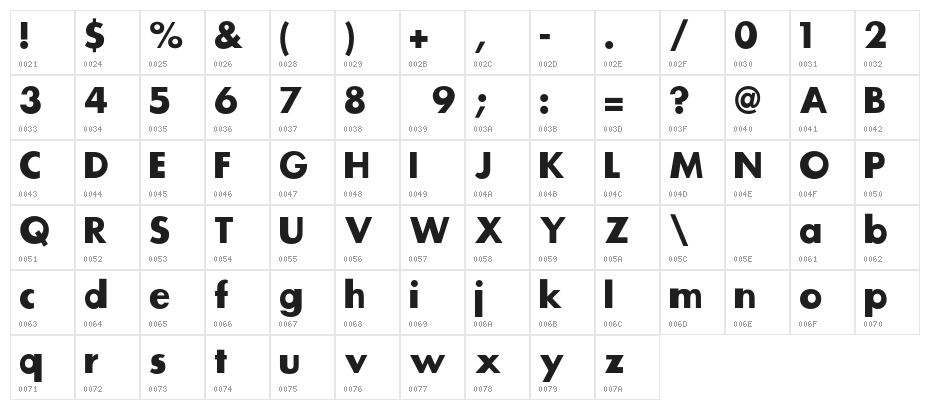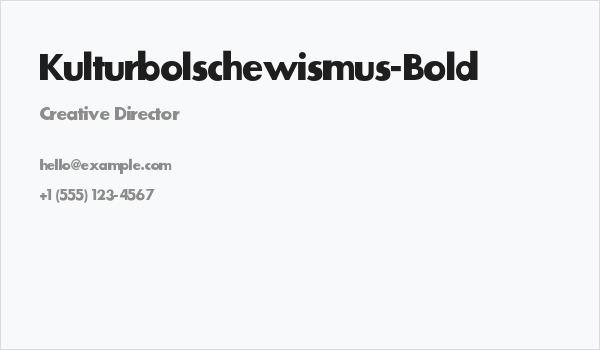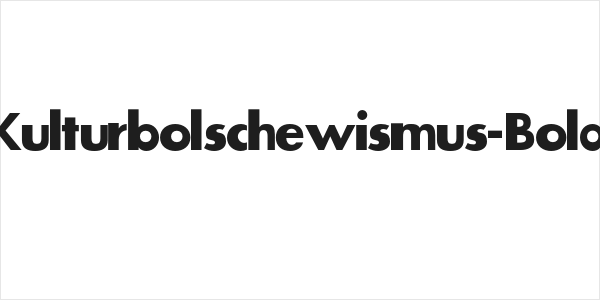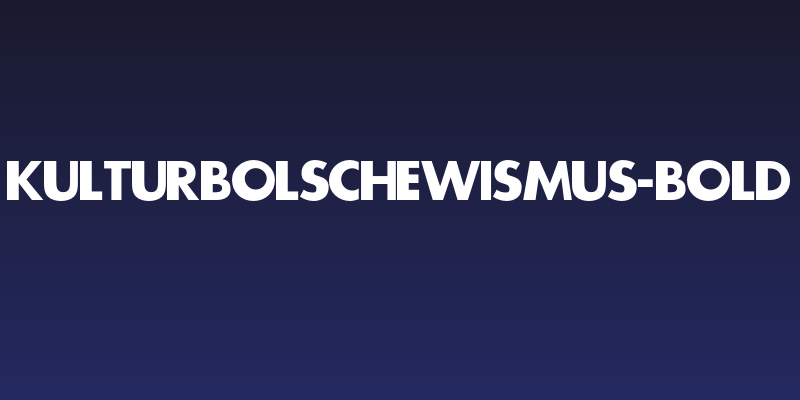
Kulturbolschewismus-Bold Font
Kulturbolschewismus-Bold Description
This bold typeface features a strong geometric design with clean, sharp edges and a modern aesthetic. The uppercase letters are particularly striking, with a uniform height and width that create a sense of stability and strength. The lowercase letters maintain this geometric consistency, offering a harmonious balance between the two cases. The numerals are bold and easily readable, making them suitable for various applications. Special characters are well-integrated, maintaining the overall bold and modern style. The font's bold weight and high contrast make it ideal for attention-grabbing headlines and impactful designs.
| Proposed Projects | Ideal for branding, advertising, posters, and any design requiring a bold statement. |